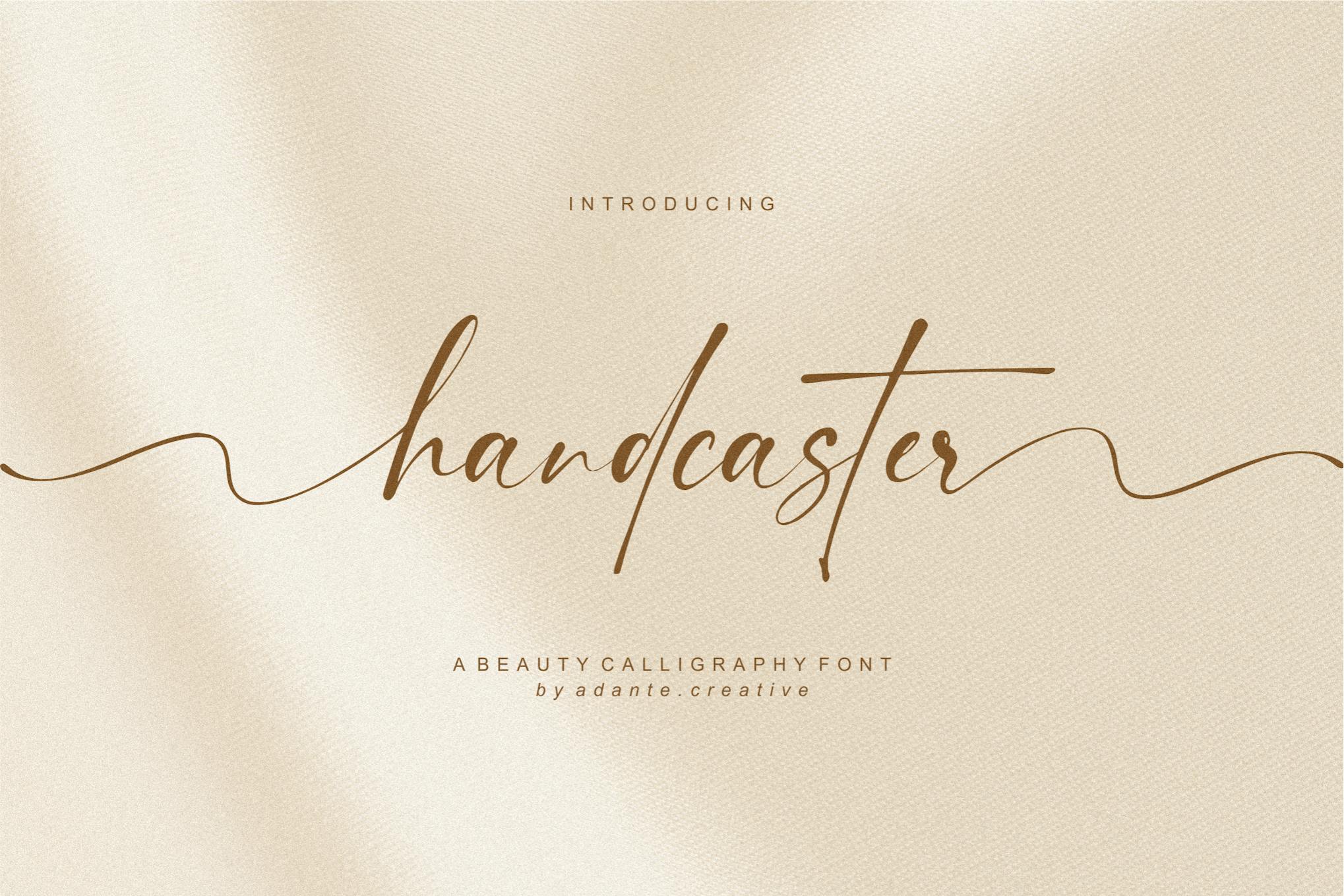
AC - Handcaster Font
Handcaster is a Beauty Calligraphy font, Apply the font in social media graphics, blog headers, and promotional images for influencers and beauty bloggers. Its captivating and eye-catching appearance helps attract followers and create a cohesive brand identity. This font includes OTF, TTF & Woff Software that you can use to use this font: Adobe Illustrator, Adobe Photoshop, Microsoft Word, Corel Draw, And Inkscape, etc.